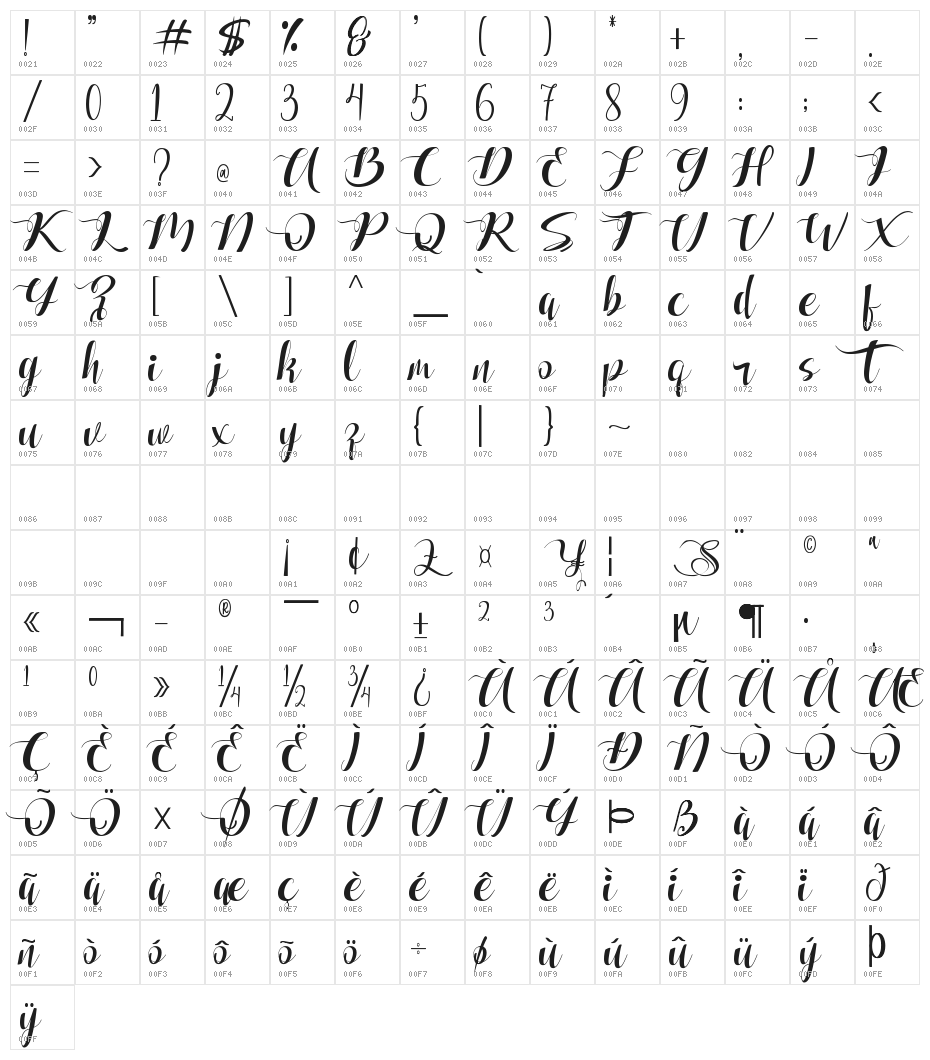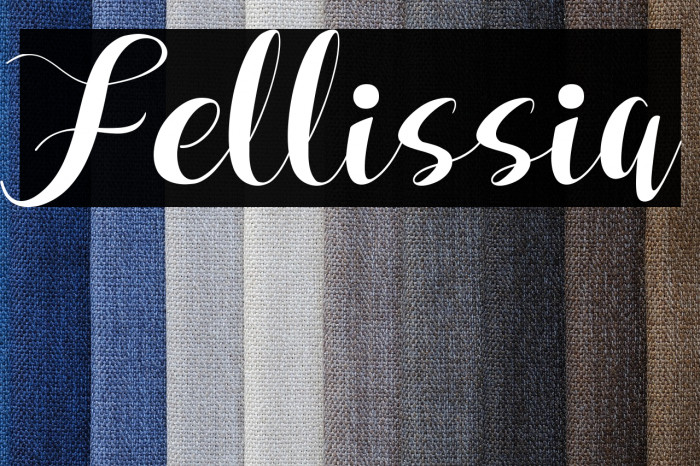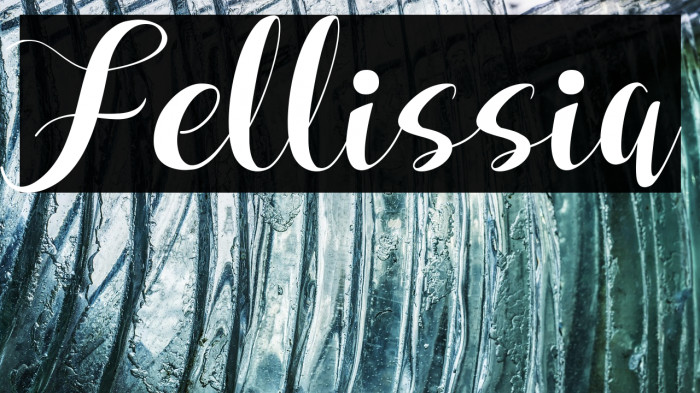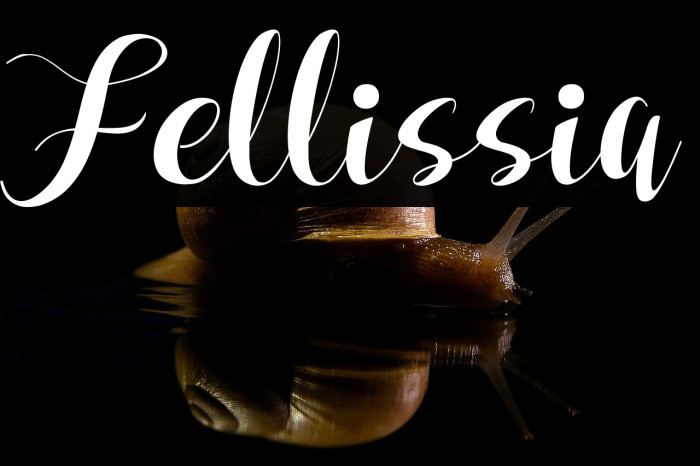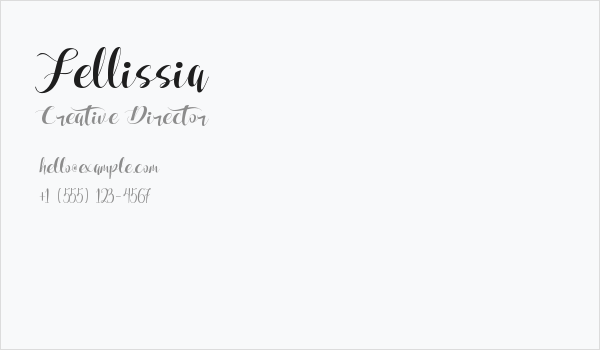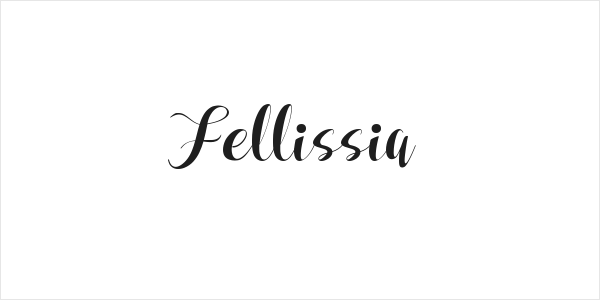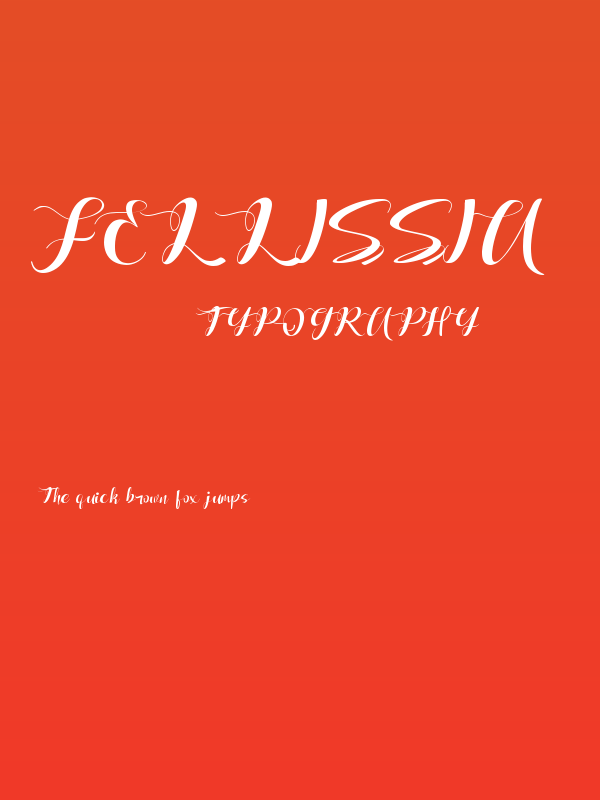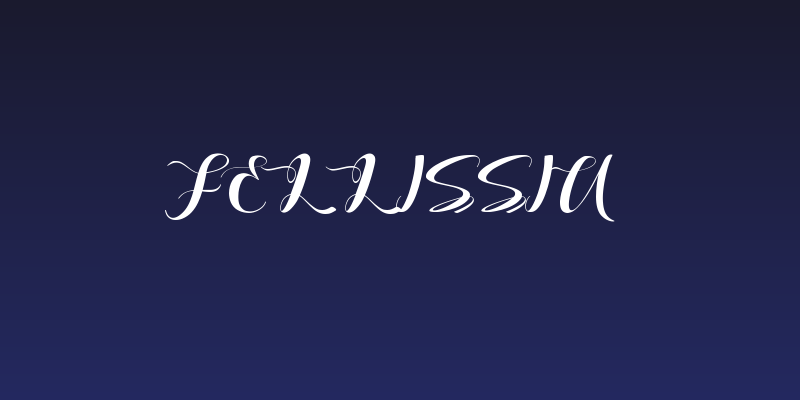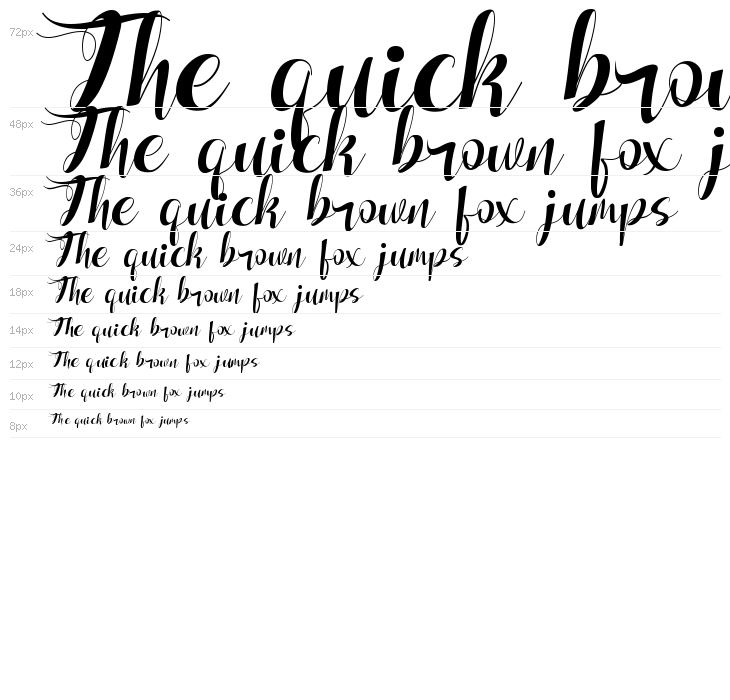
Fellissia Font
Fellissia Description
This elegant script font features flowing, interconnected letters with a graceful and artistic flair. The uppercase letters are ornate, with sweeping curves and flourishes that add a sense of movement and sophistication. The lowercase letters maintain a consistent style, with smooth transitions and a slightly slanted angle, enhancing the font's fluidity. The numerals are tall and slender, complementing the overall aesthetic. Special characters are designed with the same attention to detail, ensuring a cohesive look throughout. This font exudes a sense of elegance and creativity, making it ideal for projects that require a touch of class and artistry.
| Overall Style | Elegant, Artistic |
| Proposed Projects | Ideal for wedding invitations, elegant branding, artistic posters, and decorative signage. |